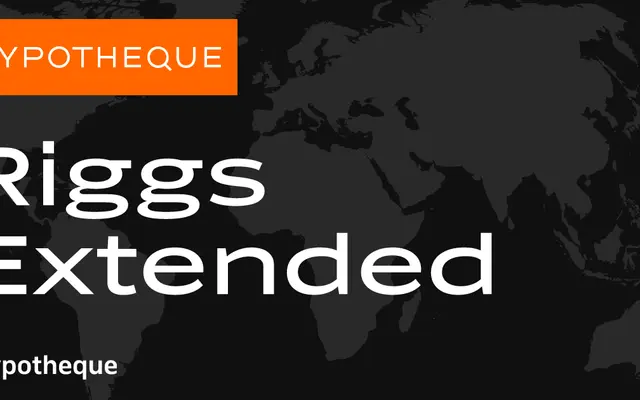
Riggs Extended specimen from Typotheque
The widest variant in Typotheque's Riggs family, offering six weights with italics across a three-width system designed for demanding text environments.
Riggs Extended sits at the broad end of a three-width serif family that also includes Riggs and Riggs Condensed, each offering ExtraLight through Bold with matching italics. The family's naming convention uses international city names for individual styles, suggesting a scope intended for multilingual and international publishing contexts. With 36 styles across the extended subfamily alone, the system is built for editorial work that needs flexibility across weight and width.
Riggs Extended is a width variant within the Riggs family, a serif typeface with multiple optical widths and weights suggesting a transitional or contemporary serif classification suited to extended Latin and multilingual text use.